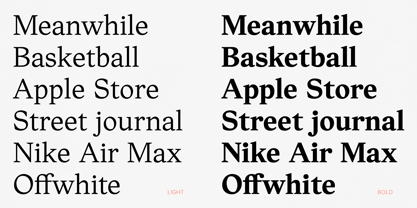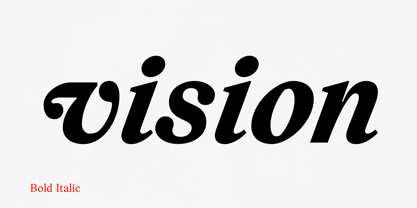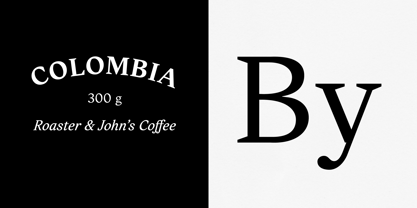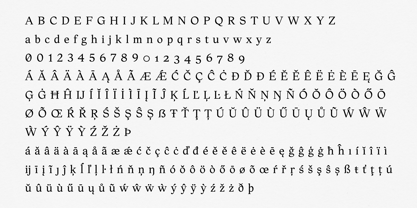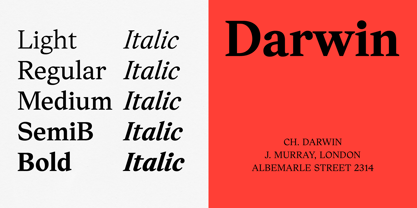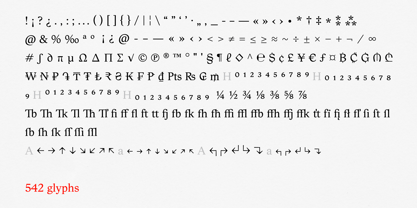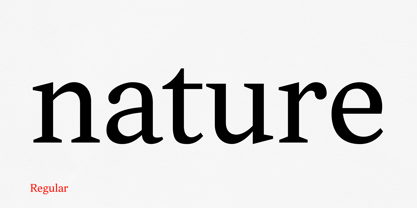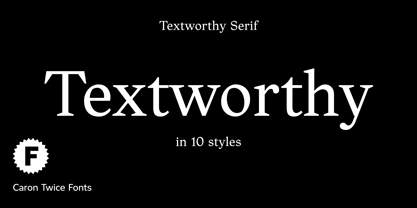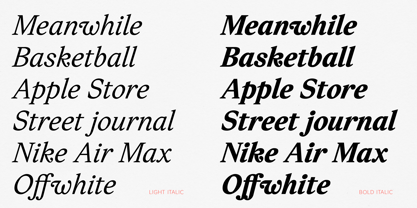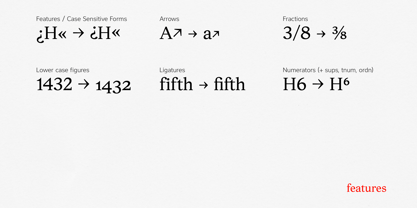
Textworthy Serif
by Caron twice
The Textworthy Serif Font Family was designed by Martin Činčár and published by Caron twice. Textworthy Serif contains 10 styles and family package options.
Textworthy is a simple serif typeface with a human character. It is based on writing with a classic pen. Serif form we know as the trustworthy type style. Similar shapes we’ve been reading about since the 15th century when letterpress began. And antique can be developed after blackletter type. Textworthy was created because we still believe in serif type for over 500 years. And we still need to use serif types in today’s world for comfortable and rational acceptance of text information.  Textworthy shapes are inspired by the most known serif typeface – Times. On the other side, Italic styles are inspired by more traditional typefaces like – Caslon and Garamond. This combination allows for contemporary-looking text that is complemented by visually interesting Italics.